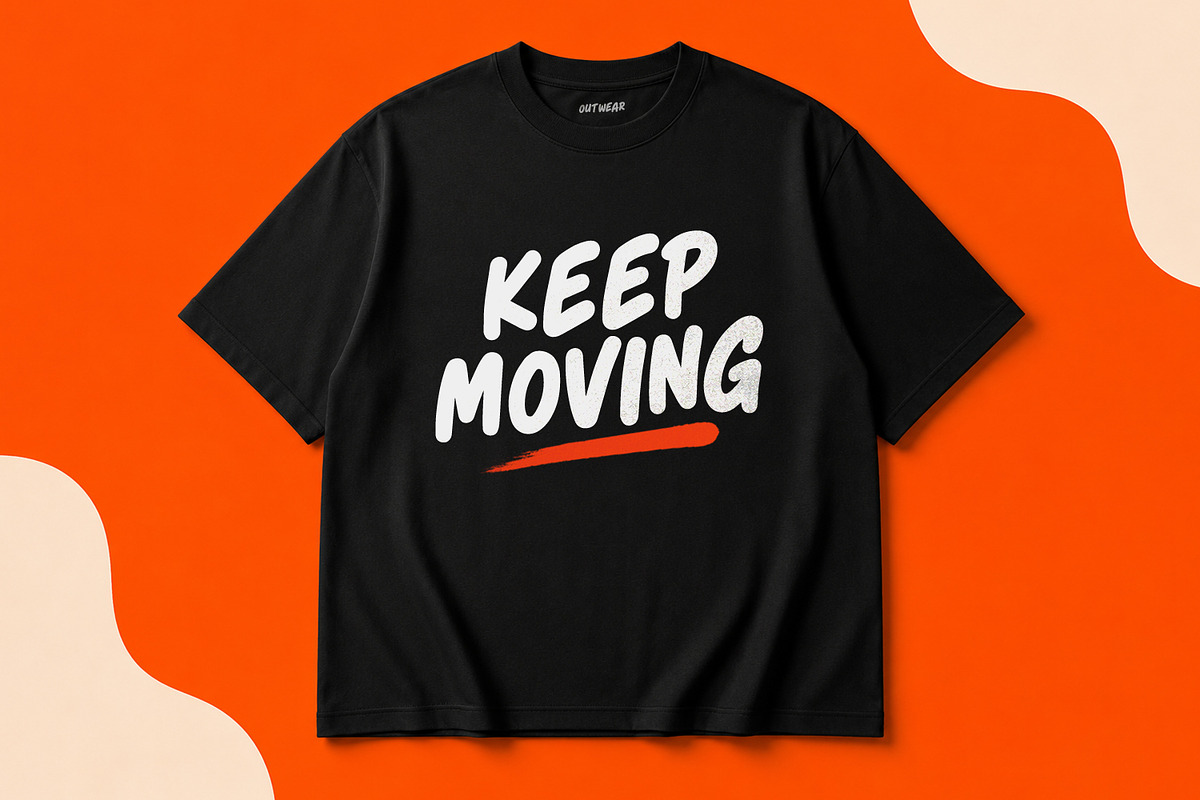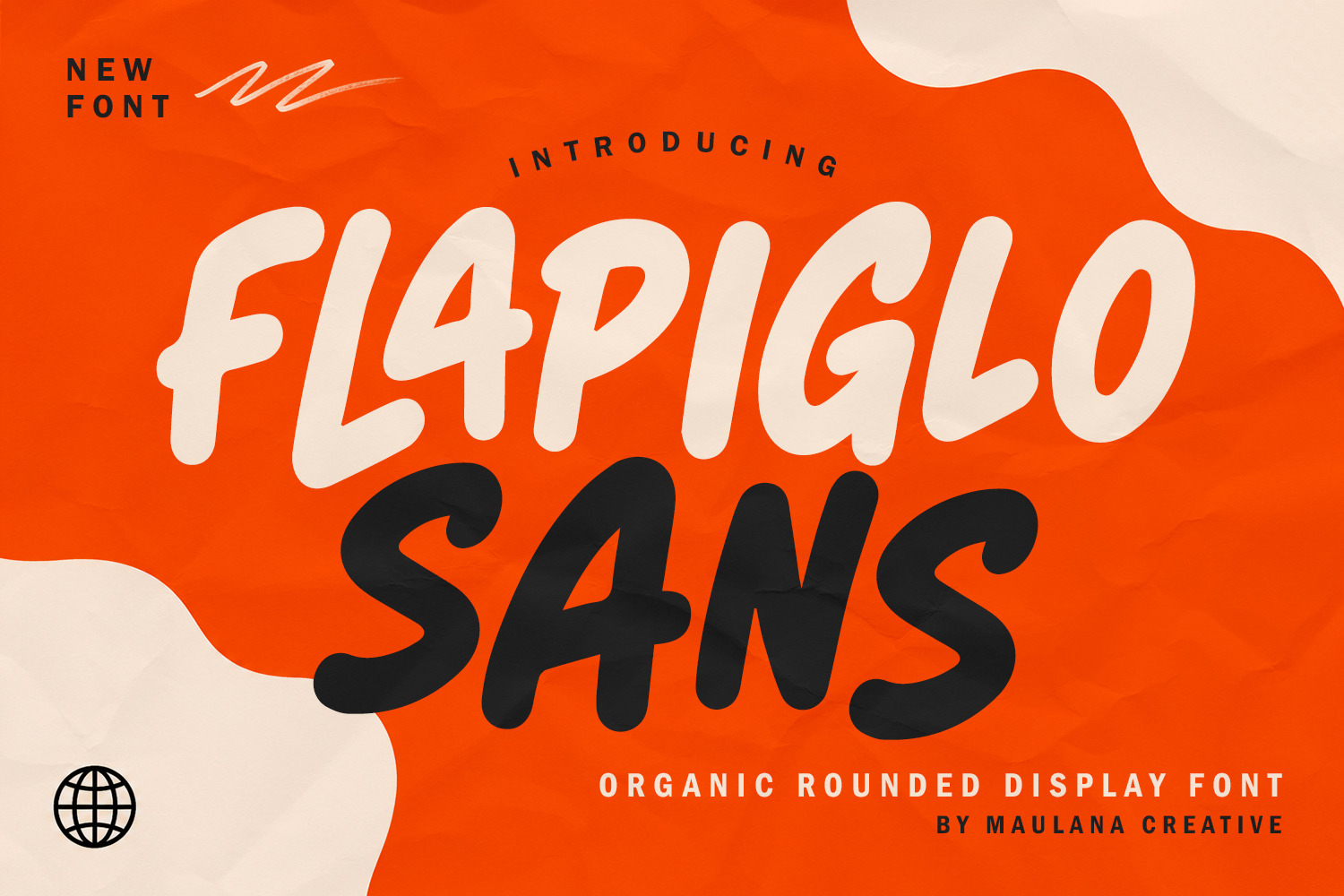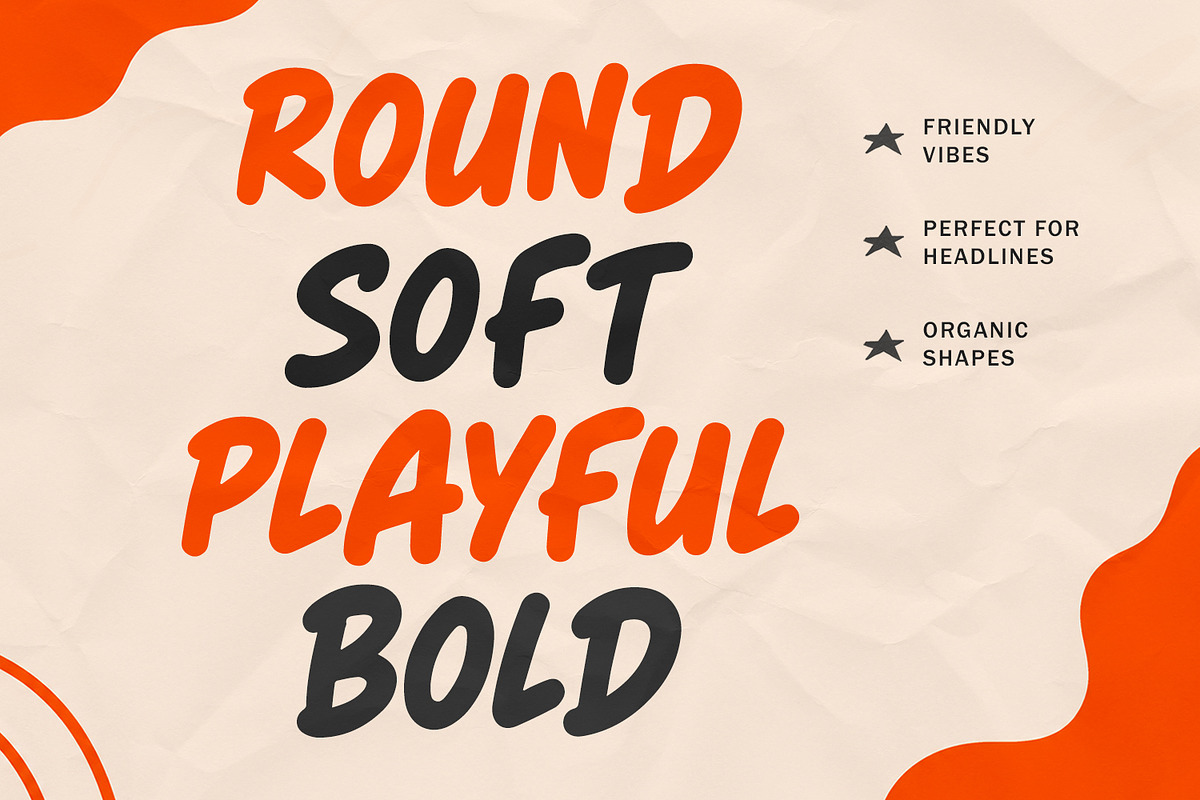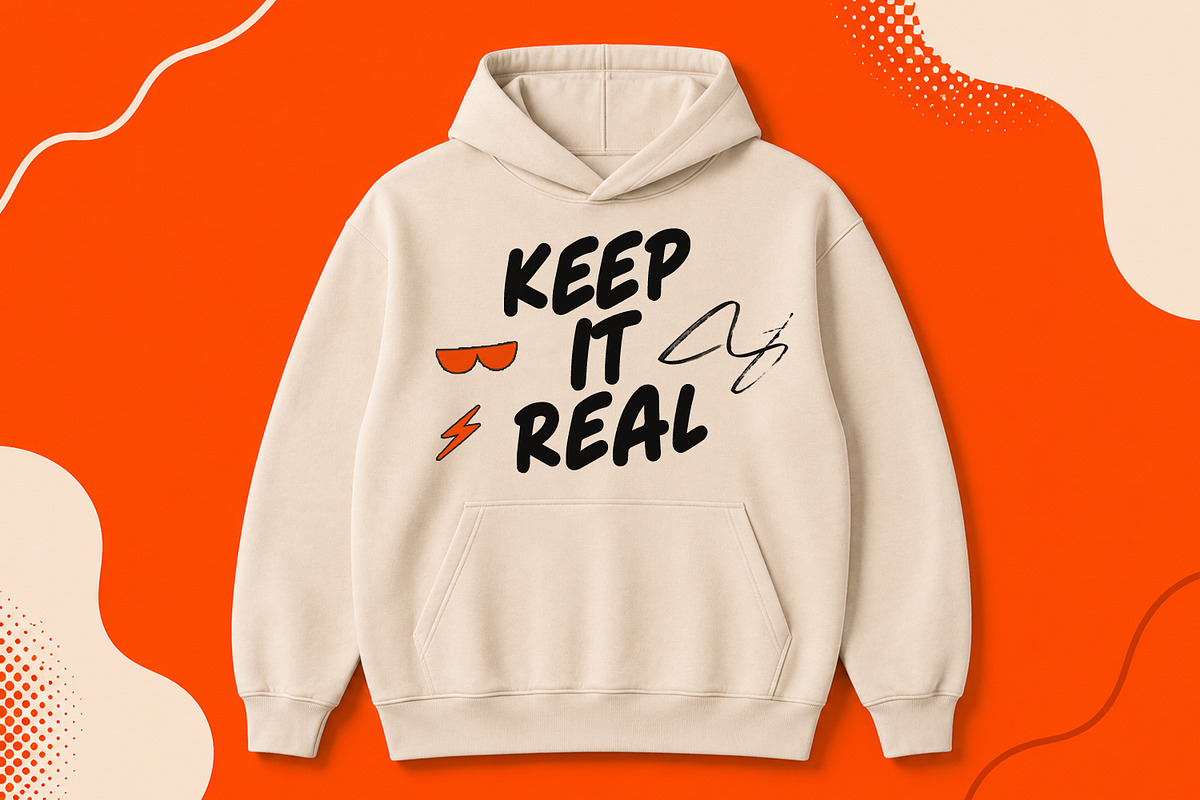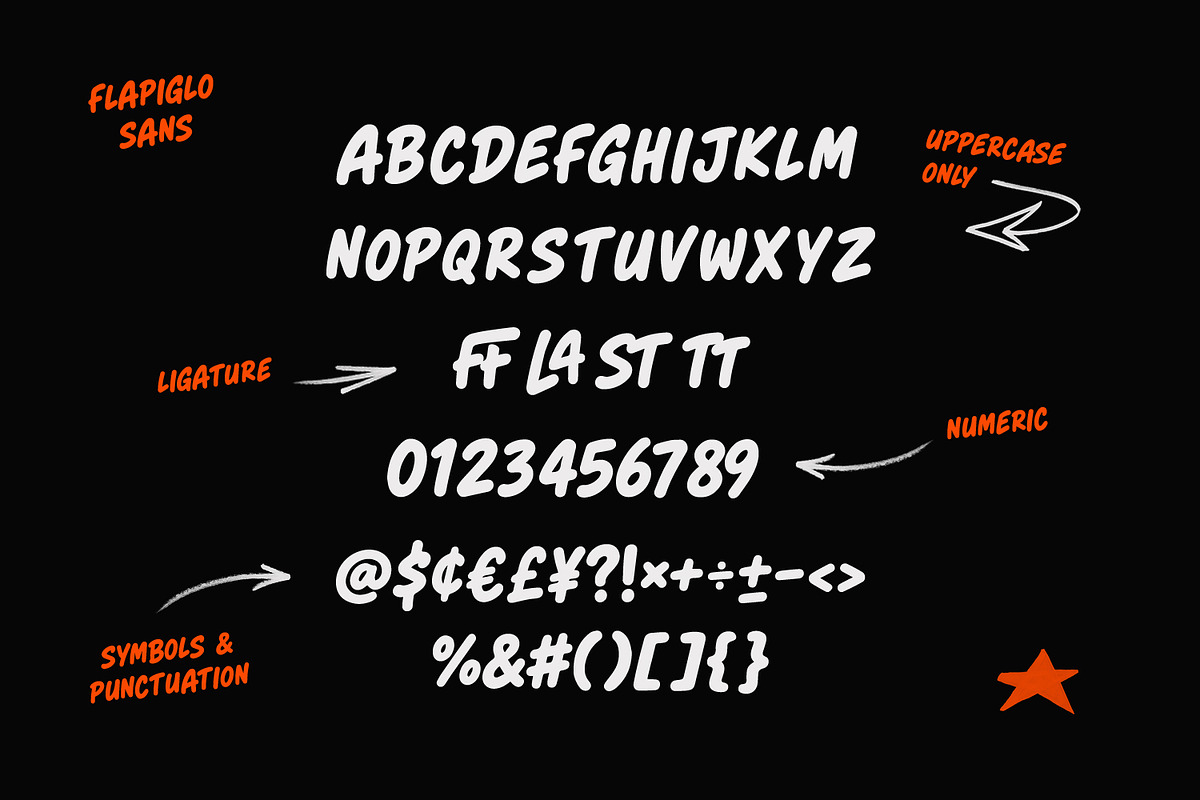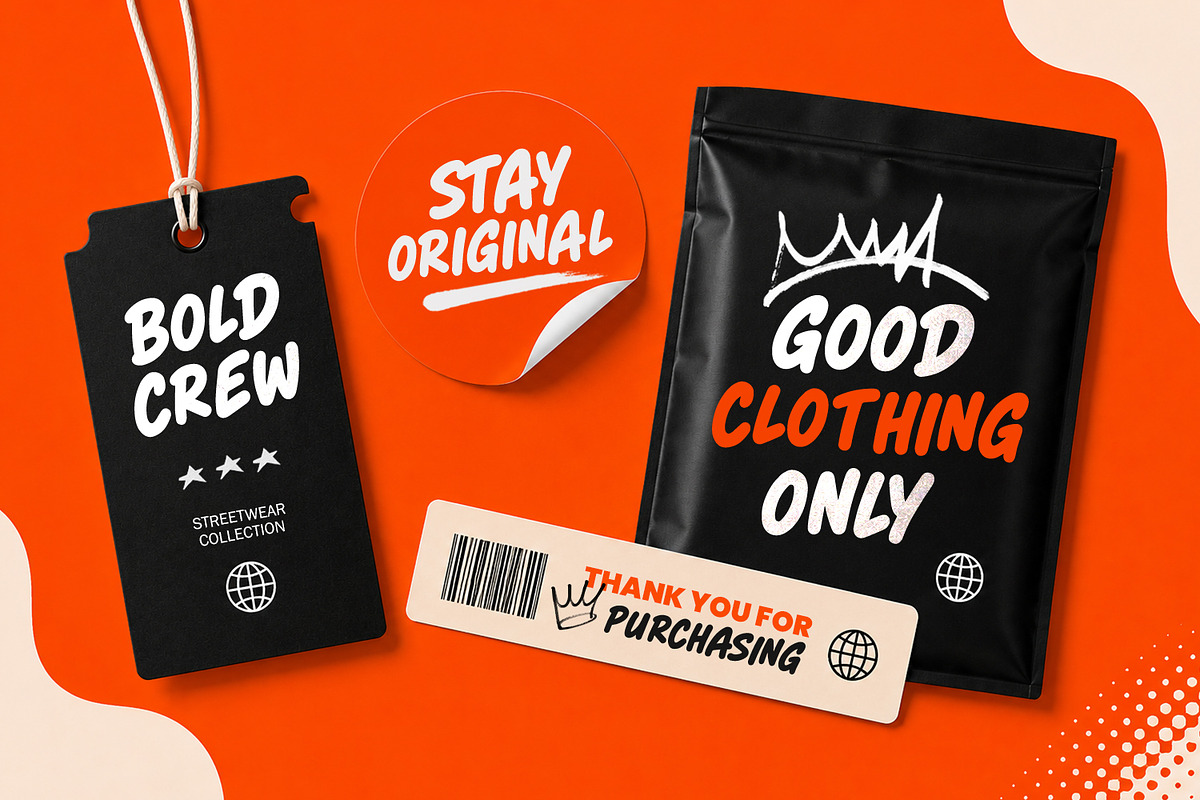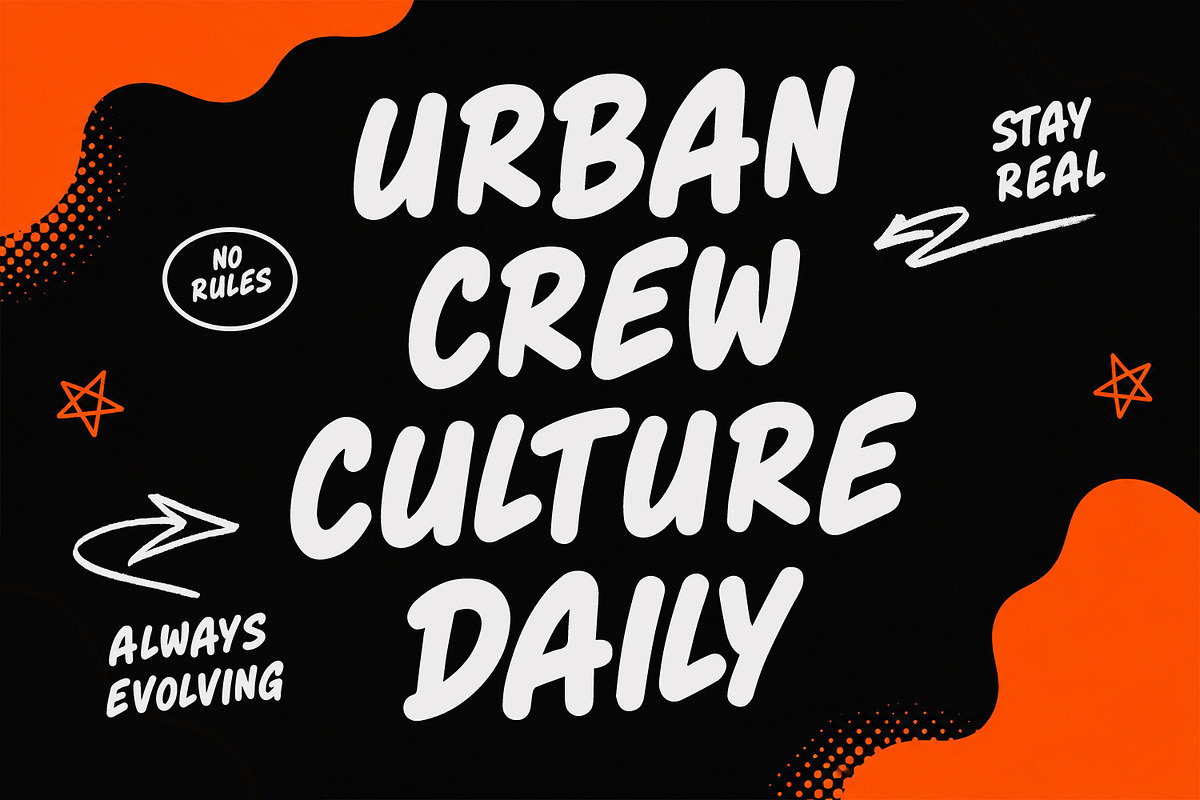
Flapiglo Sans Organic Rounded Font
Flapiglo Sans is an organic rounded display typeface designed with a bold, playful, and friendly aesthetic. Featuring soft edges, natural curves, and custom ligatures, this uppercase-only font captures a modern urban vibe perfect for striking visuals. Its heavy, handcrafted look delivers strong legibility while maintaining a relaxed and approachable aesthetic across digital and print media.
Equipped with uppercase letters, numbers, symbols, and unique ligatures, Flapiglo Sans excels in contemporary design applications. This display font is perfectly suited for streetwear apparel, packaging labels, posters, merchandise, headlines, and social media graphics that require a distinct, youth-centric personality.